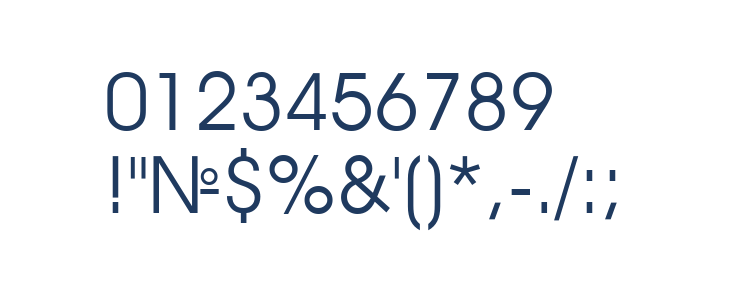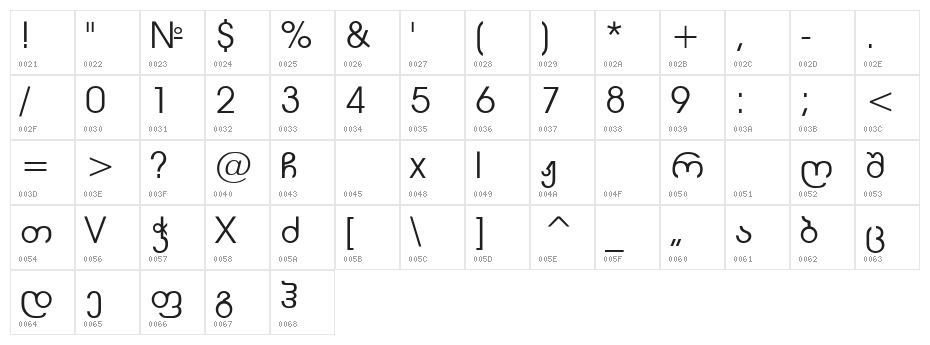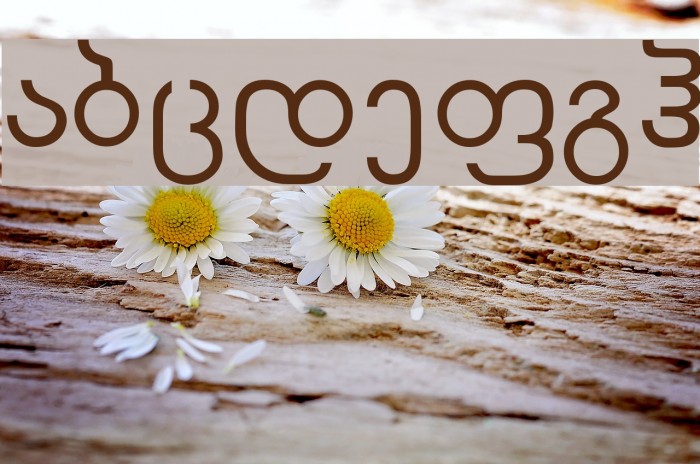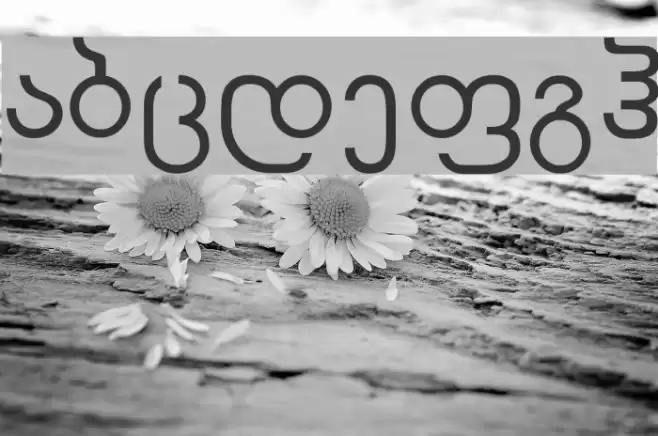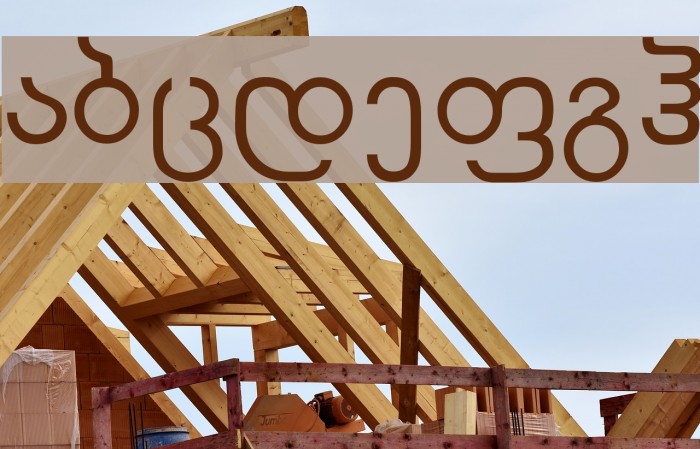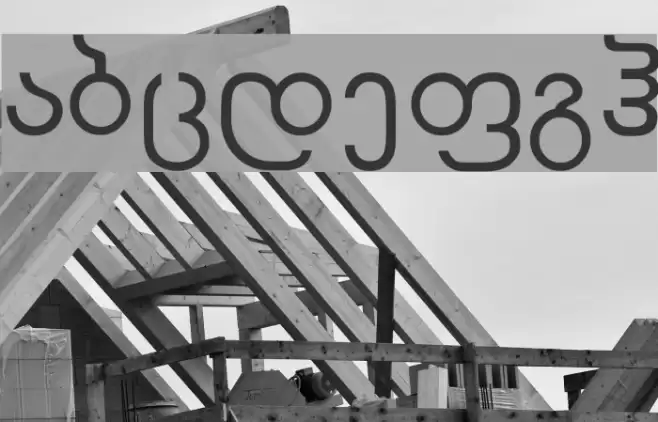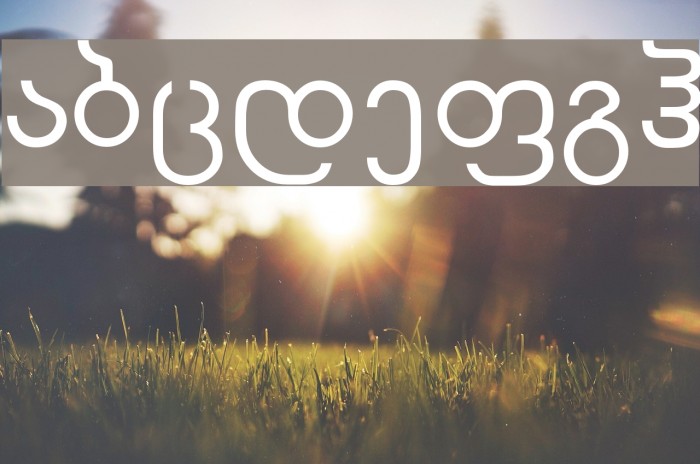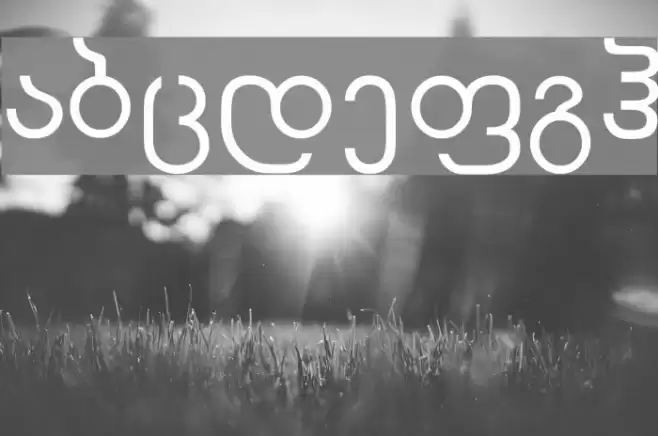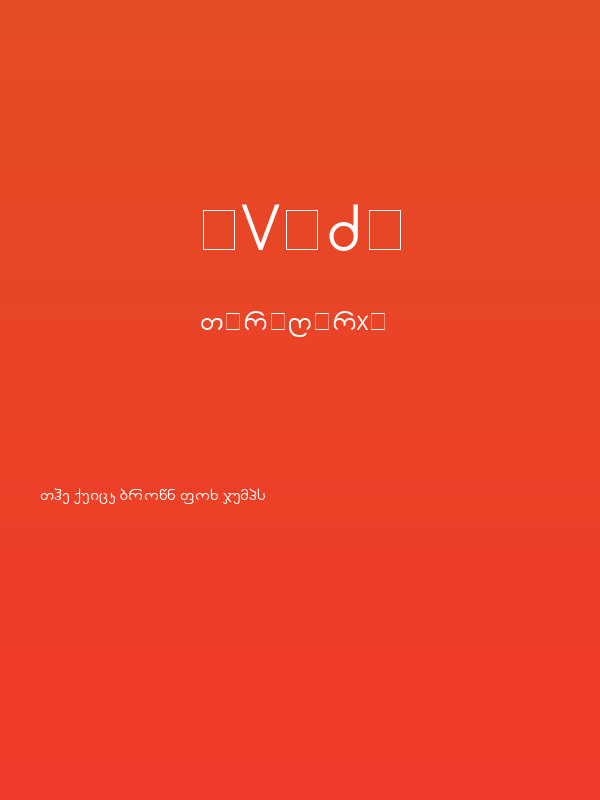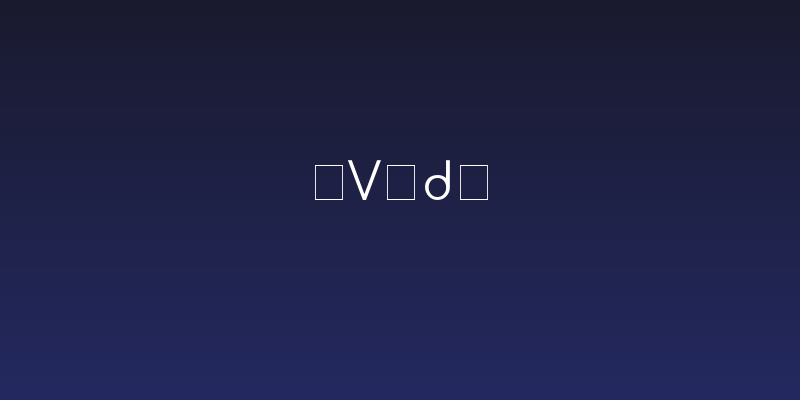
Avaza Font
Avaza Description
This font features a modern and clean design with a focus on readability and simplicity. The characters are well-balanced with a consistent stroke weight, giving it a uniform appearance. The rounded edges and smooth curves add a friendly and approachable feel, making it suitable for a variety of applications. The numerals are clear and distinct, ensuring easy legibility. Special characters are included, maintaining the font's cohesive style. Overall, this font is versatile and can be used in both digital and print media.